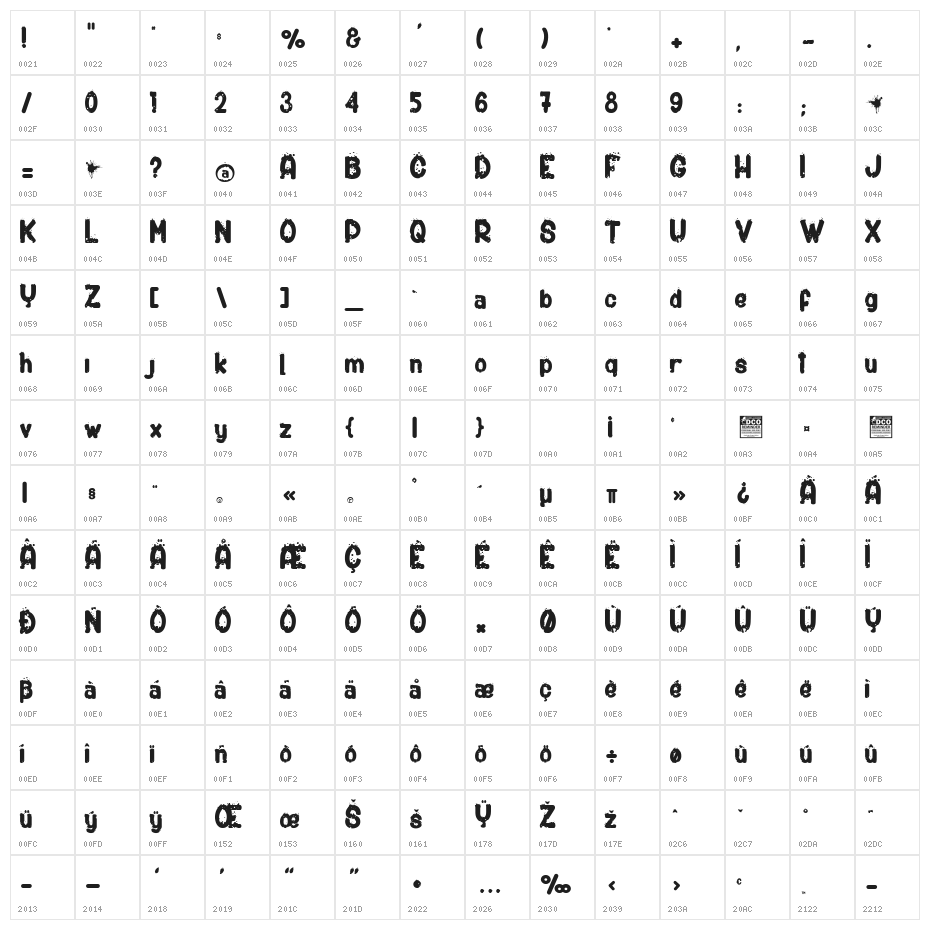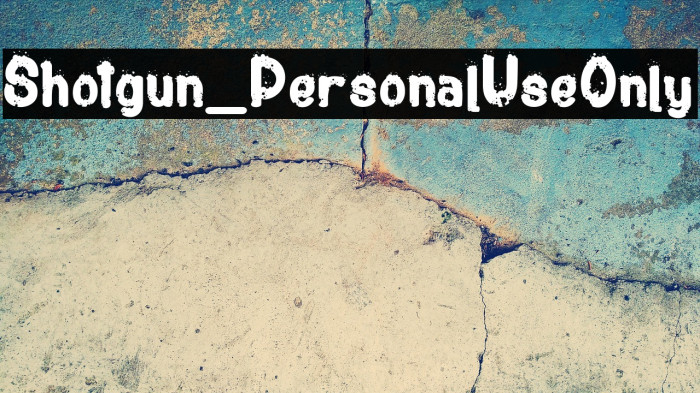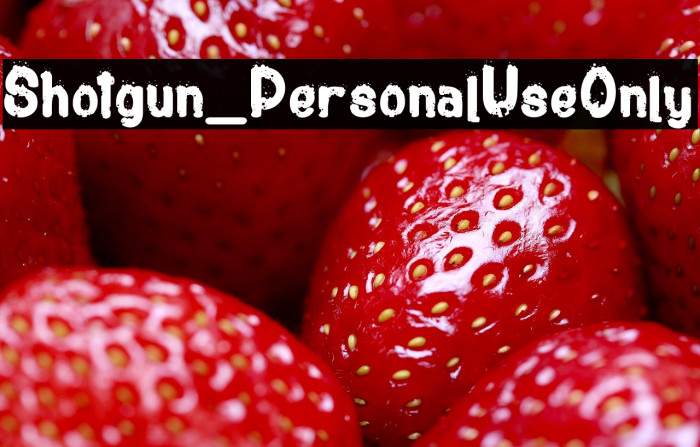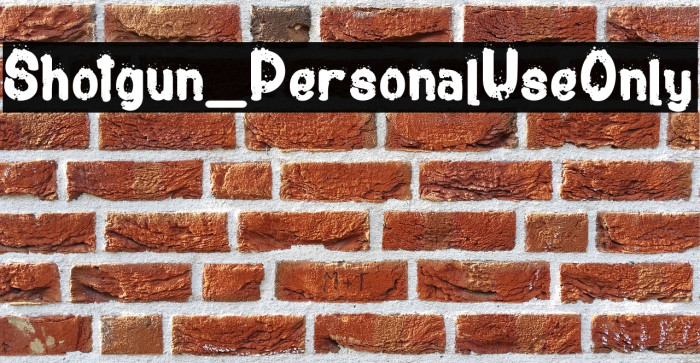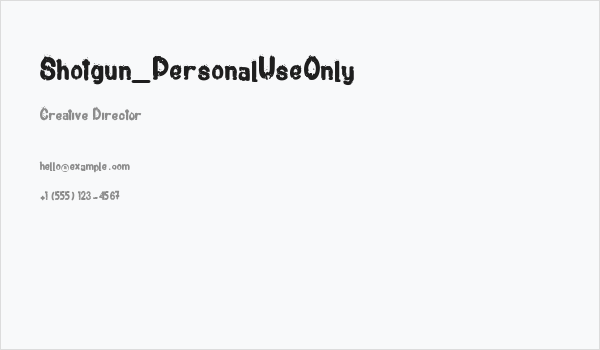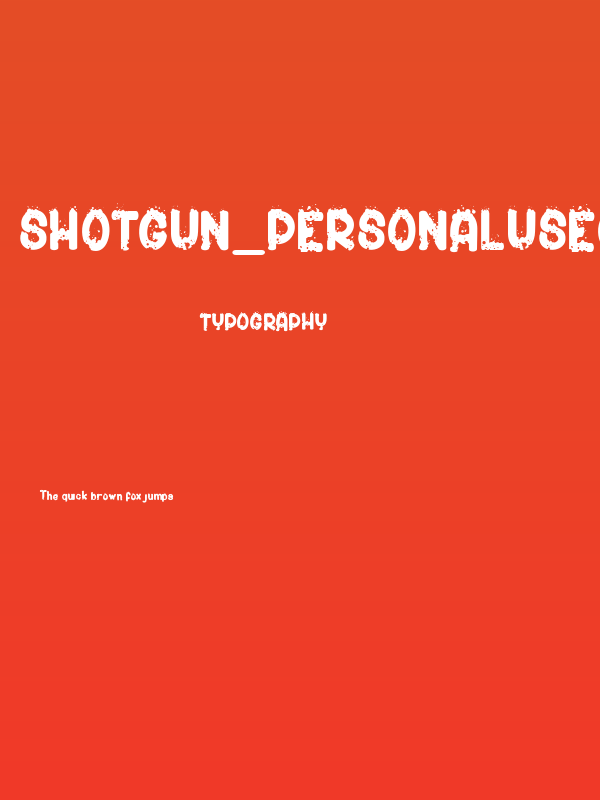
Shotgun_PersonalUseOnly Font
Shotgun_PersonalUseOnly Description
This font features a bold, distressed style with a textured, grunge appearance. The characters are heavily stylized, with irregular edges and a splattered effect that gives them a rugged, worn look. The uppercase and lowercase letters maintain a consistent weight, adding to the boldness of the design. Numbers and special characters follow the same aesthetic, making the font cohesive across all elements. The overall appearance is eye-catching and dynamic, suitable for designs that require a strong visual impact.
| Proposed Projects | Ideal for music album covers, posters, urban-themed designs, and branding that requires a gritty, edgy look. |